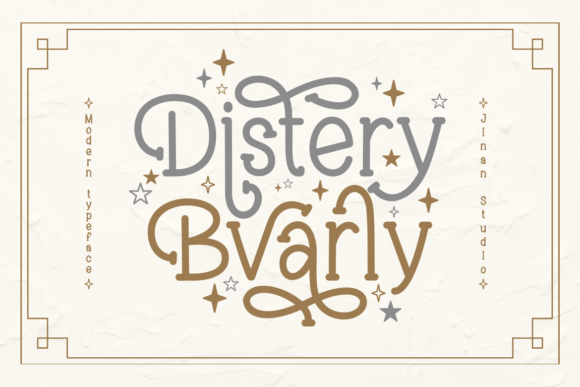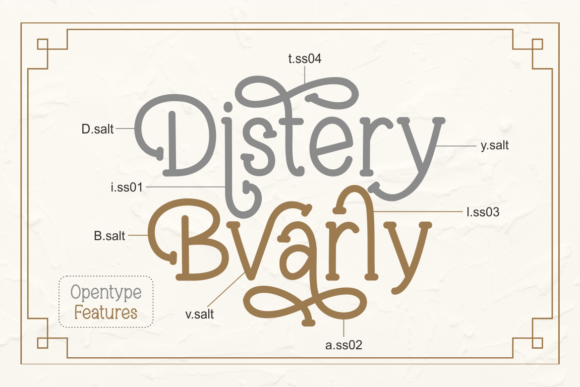
Distery Bvarly Font
About the Distery Bvarly Font
We are excited to introduce Distery Bvarly Font, a must-have typeface for any serious designer. Distery Bvarly is a stylish and modern slab serif font, suitable for a wide spectrum of applications. From greeting cards to headlines, branding and packaging, this font will guarantee a happiness touch to each of your creations!
Distery Bvarly’s strong slab serifs make it ideal for headlines, short blocks of text in branding materials, and impactful packaging designs. Its modern aesthetic lends itself well to projects with a clean, contemporary feel. However, its bolder weight and strong character make it less suitable for body copy or UI elements requiring high readability over extended lengths.
The font possesses a bold and confident personality. To soften this, pair it with a lighter sans-serif like Montserrat or Lato for body text. For a more luxurious feel, consider pairing it with a delicate script font such as Great Vibes or Allura for secondary text elements. A geometric sans-serif like Futura would create a strong, modern contrast.
For brands aiming for a sophisticated yet approachable image, Distery Bvarly is a strong choice. Think high-end fashion, premium food products, or technology companies seeking to project a sense of authority and innovation.
Distery Bvarly Font Usage Examples
Distery Bvarly Font Example